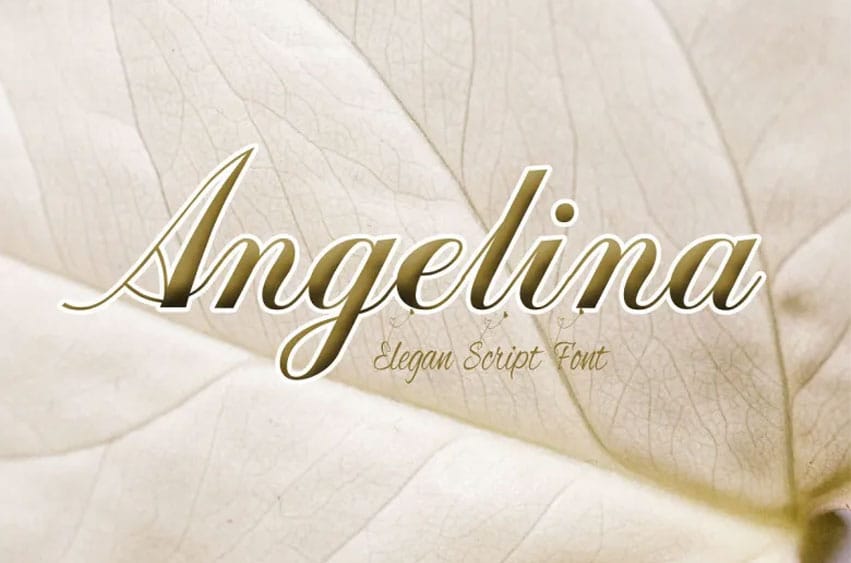
Angelina Script Font is a modern and fashionable script font which is suitable for any kind of project.
Angelina is simple yet it has a unique design that can be used for wedding invitations or stationery or even Instagram post!